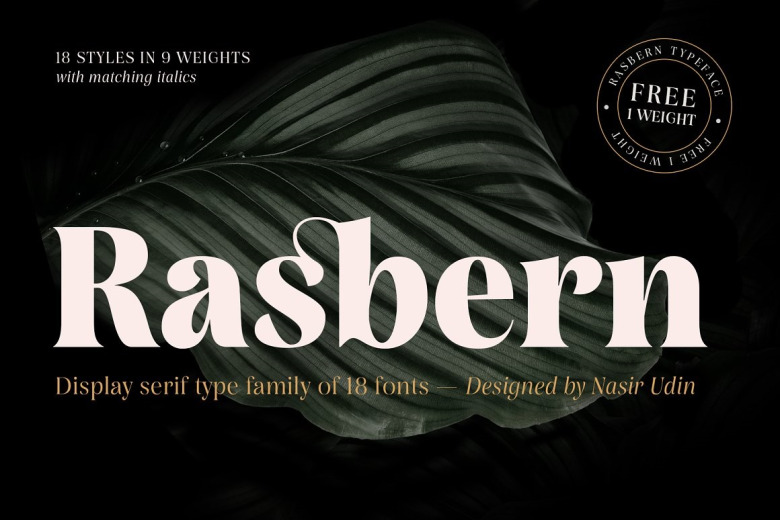
Rasbern Font
Rasbern Font is a display serif typeface with unique high contrast and refreshing looks. Font Rasbern has many alternates from Thin to black including Italics, and can be used in any type of graphic or editorial project.
The lighter weights are well suited to body, heavier weights to headlines — optimal for display purposes e.g. branding, book covers, web heading.
Rasbern Display Serif Typeface